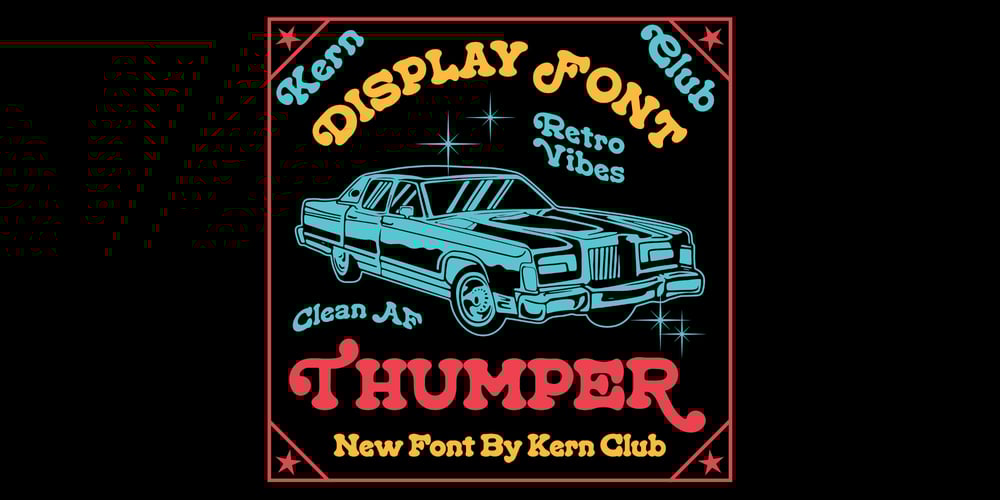
Thumper Font Family was designed by Sam Bledsoe and published by Kern Club. Thumper contains 1 styles and family package options. Nostalgia styled font designed by Samborghini Uppercase Character Set A-Z Lowercase Character Set a-z Tons of alternate characters Numerals & Simple punctuation OTF file format